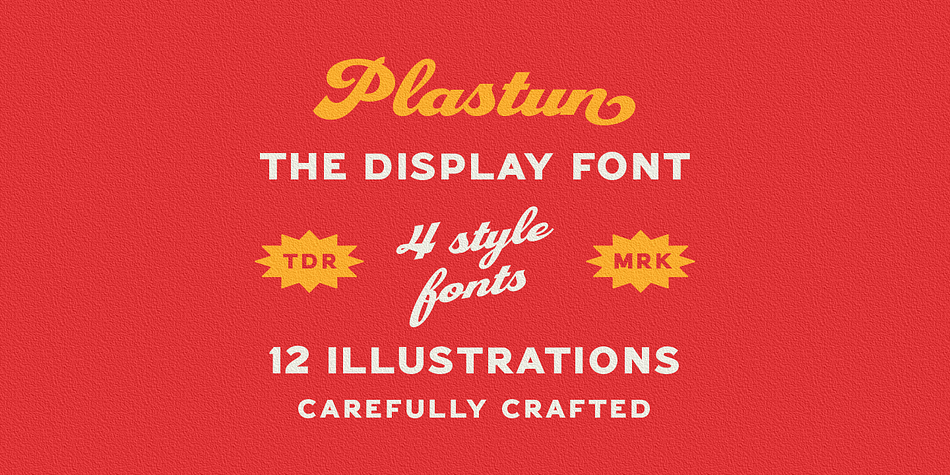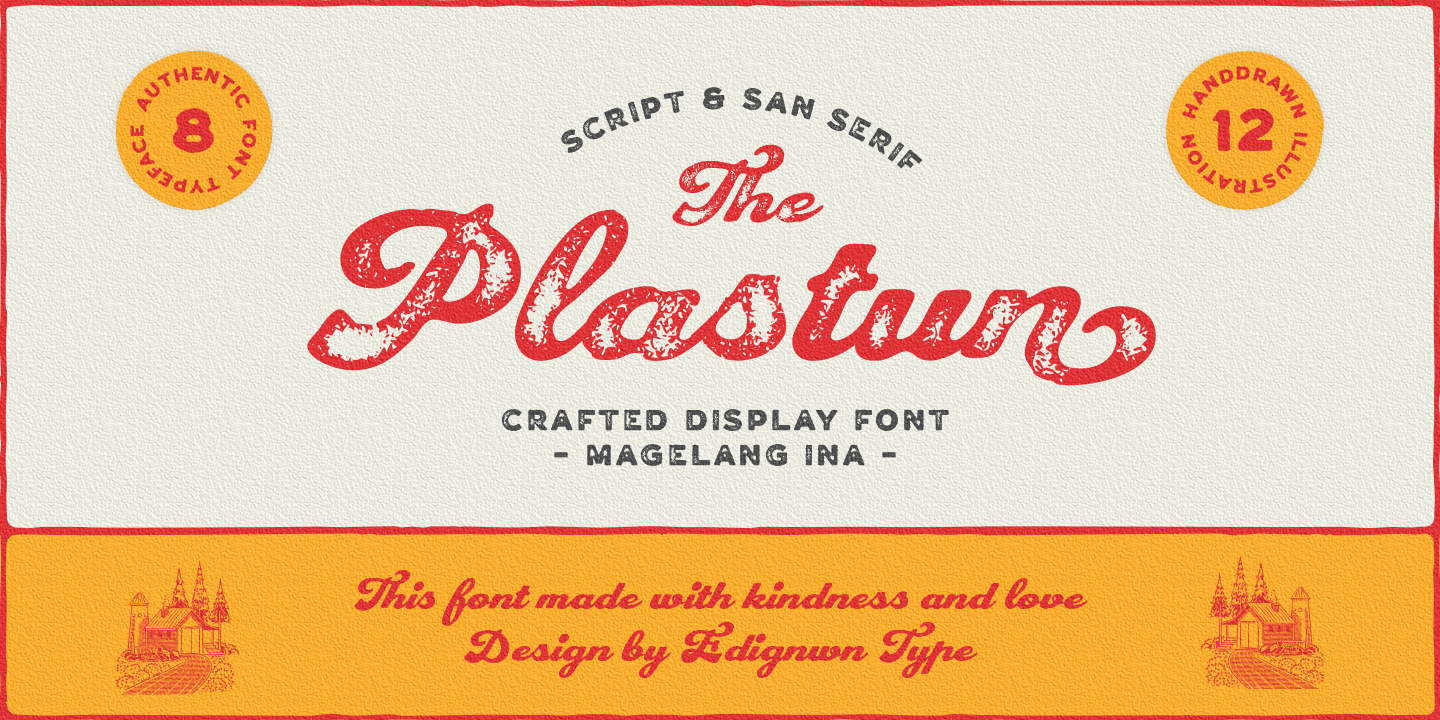
Plastun
Designed by Edi Gunawan, Plastun is a multiple classification font family. This typeface has nine styles and was published by Edignwn Type.
The font collection is called “Plastun”, it is a vintage display font for logotype. These collections contain script and sans serif font. Every font comes with 4 style typefaces (regular, rounded, rough and textured). Plastun gives more extras animal and farm in one pack illustrations. This script font includes some alternates and ligatures. This texture style includes some different stamps for uppercase and lowercase in sans serif. The Plastun matches apply in some designs such as the logo, poster, label, badge, packaging, t-shirt, branding, quotes and more custom design.
Plastun features :
- 4 style typefaces (regular, rounded, rough and textured)
- Uppercase, lowercase, numeral, symbol, punctuation, ligature and alternate(ss01-ss05) in script font
- All-caps, numeral, symbol and punctuation in sans serif font
- Multilingual
Plastun includes :
- 9 fonts (script, sans serif and dingbat)
- 12 hand-drawn illustrations in dingbat